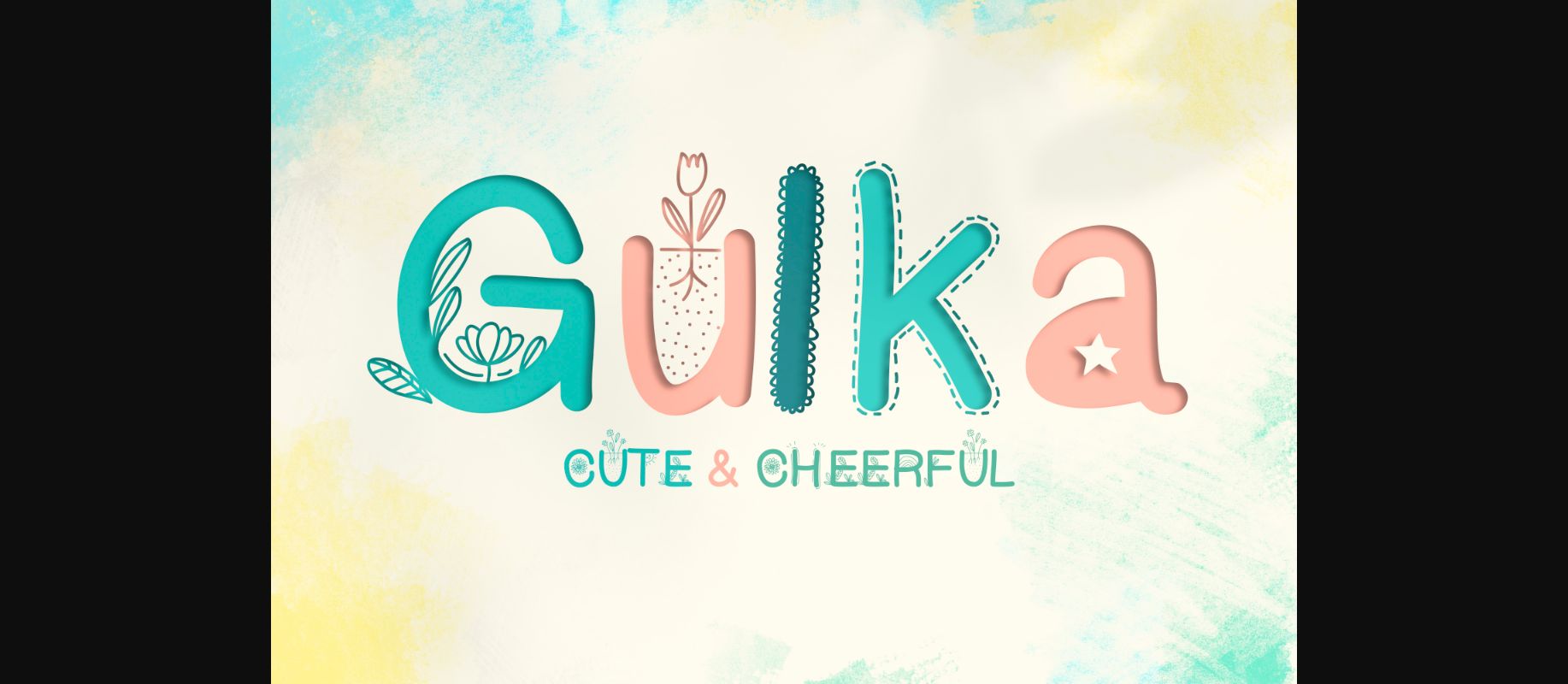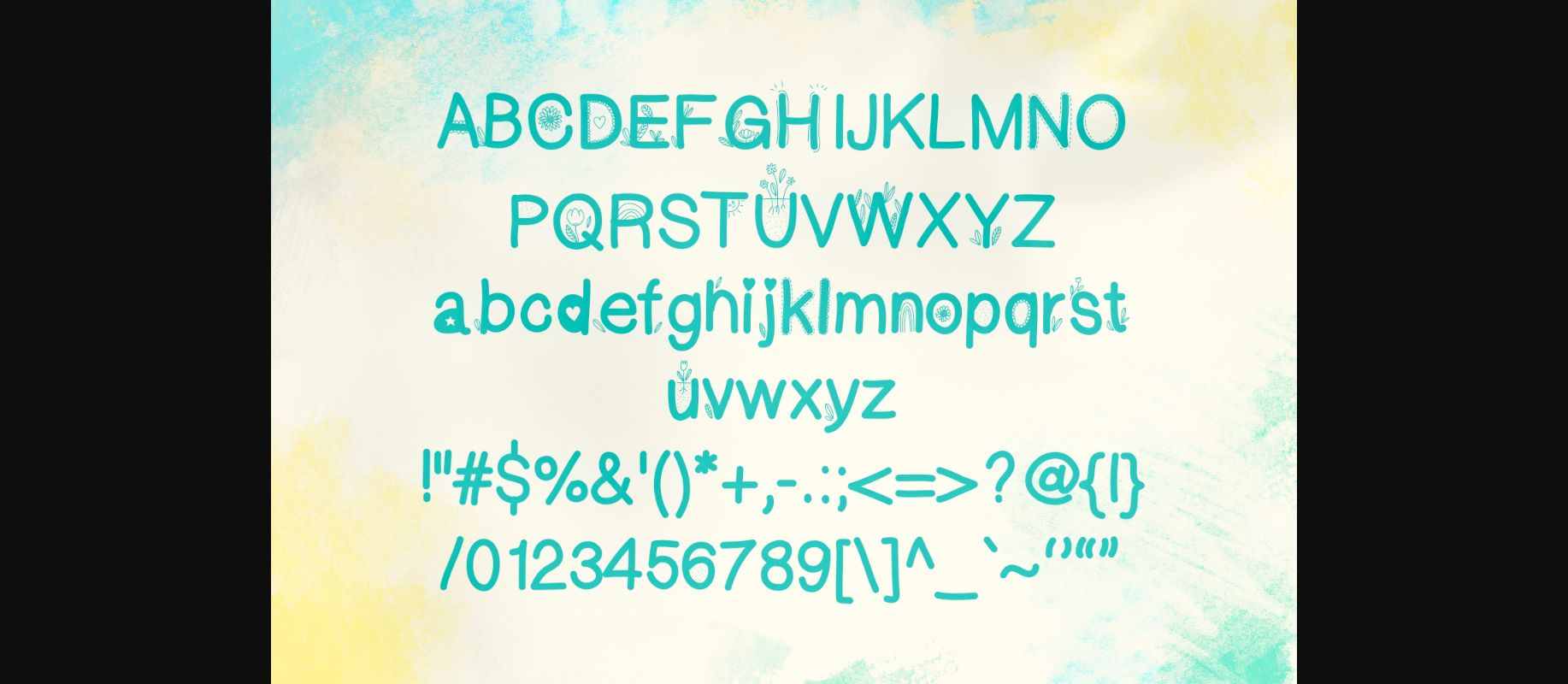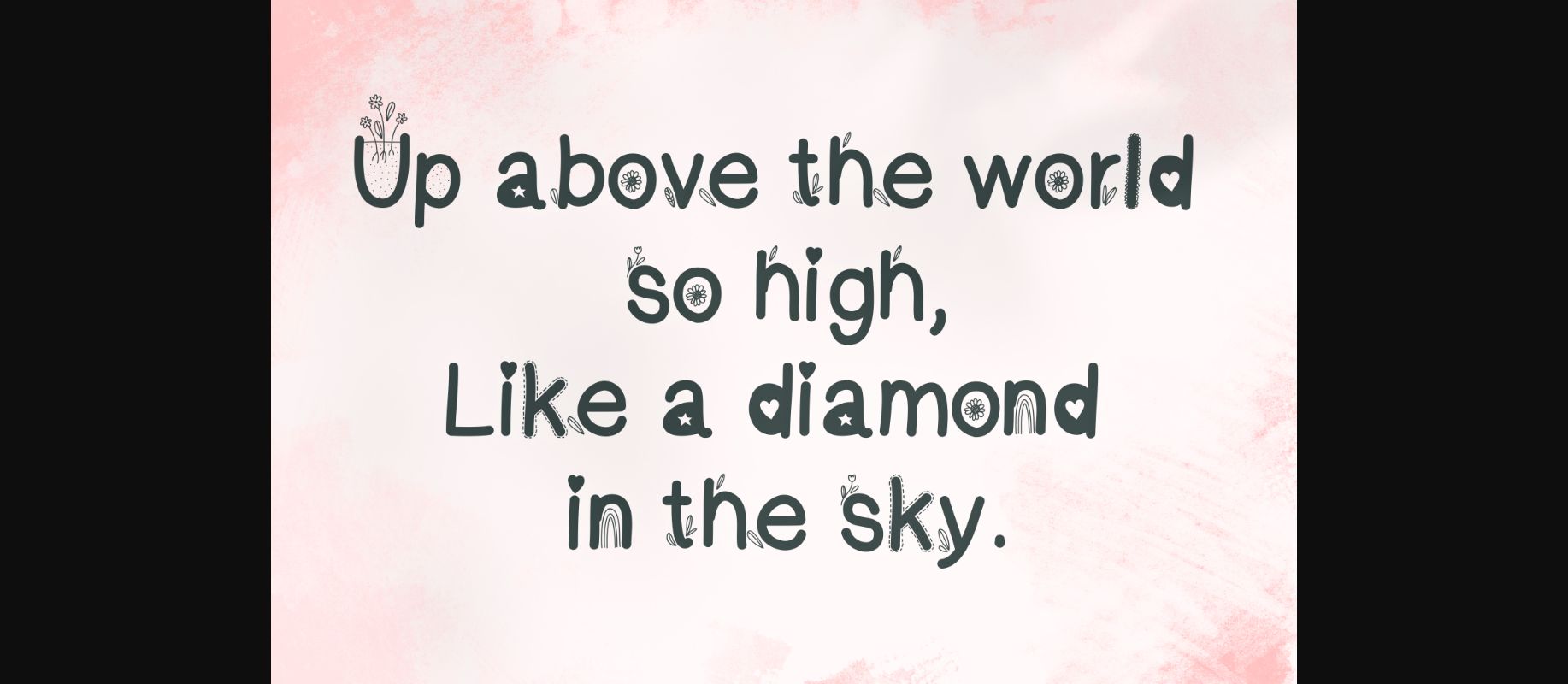
About Gulka Font
Gulka is a sweet and joyful decorative font. This enchanting font will turn any creative idea into a true standout. Get creative with its childlike playfulness, and use it to brighten up any kids and school project!